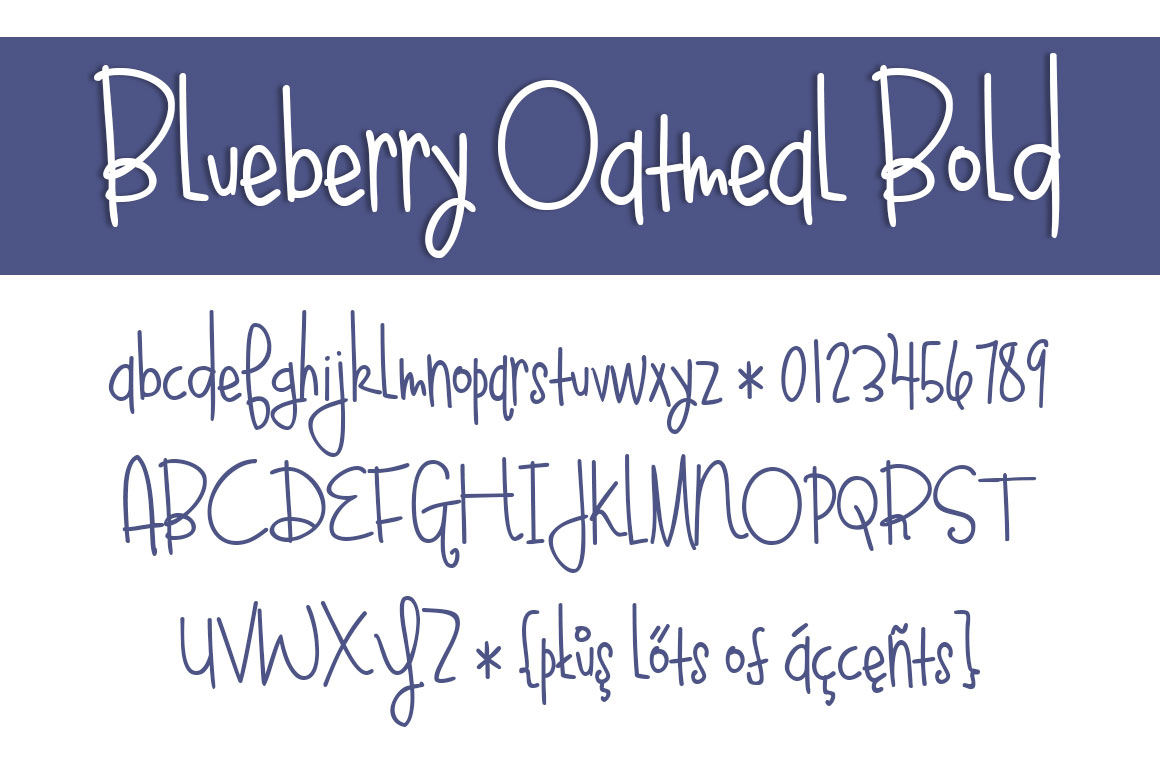
Blueberry Oatmeal Bold Font: A Fun and Unique Handwritten Typeface
Are you tired of using the same old boring fonts in your designs? Look no further than the Blueberry Oatmeal bold font! This fun and playful handwritten typeface is sure to add a touch of personality to any project. With its unique blend of varying letter heights and sizes, Blueberry Oatmeal is the perfect choice for designers and crafters looking to add some whimsy to their work.
The Story Behind Blueberry Oatmeal
Blueberry Oatmeal is a fun handwritten type with various letter heights and sizes that give it a unique look. This distinctive style is what sets it apart from other fonts and makes it so appealing to designers and crafters. The font’s creator aimed to capture the feeling of handwritten text, with all its imperfections and quirks, and put it into a digital format.
Characteristics of Blueberry Oatmeal
So, what makes Blueberry Oatmeal so special? Here are just a few of its key characteristics:
- Unique lettering style: Blueberry Oatmeal features a one-of-a-kind lettering style, with letters of varying heights and sizes. This gives the font a playful, hand-drawn feel that’s perfect for adding personality to your designs.
- Handwritten feel: Unlike more formal fonts, Blueberry Oatmeal has a distinctly handwritten feel. This makes it ideal for projects where you want to add a personal touch.
- Versatile: Despite its unique style, Blueberry Oatmeal is surprisingly versatile. It can be used for a wide range of projects, from digital designs to print materials.
Uses for Blueberry Oatmeal
So, what can you use Blueberry Oatmeal for? The possibilities are endless! Here are a few ideas to get you started:
- Digital designs: Blueberry Oatmeal is perfect for digital designs, such as social media graphics, blog posts, and email newsletters.
- Print materials: This font is also great for print materials, like brochures, flyers, and business cards.
- Crafting projects: If you’re a crafter, you’ll love Blueberry Oatmeal for projects like scrapbooking, card making, and journaling.
Tips for Using Blueberry Oatmeal
Here are a few tips for getting the most out of Blueberry Oatmeal:
- Experiment with sizes: Don’t be afraid to experiment with different font sizes to add visual interest to your designs.
- Mix and match: Blueberry Oatmeal pairs well with other fonts. Try mixing and matching it with other typefaces to create a unique look.
- Use it sparingly: While Blueberry Oatmeal is a fun font, it can be overwhelming if used too much. Use it sparingly to add emphasis and personality to your designs.
In conclusion, Blueberry Oatmeal is a unique and versatile font that’s perfect for designers and crafters looking to add some personality to their work. With its handwritten feel and distinctive lettering style, this font is sure to make your designs stand out. So why not give Blueberry Oatmeal a try and see what kind of creative possibilities it opens up for you?